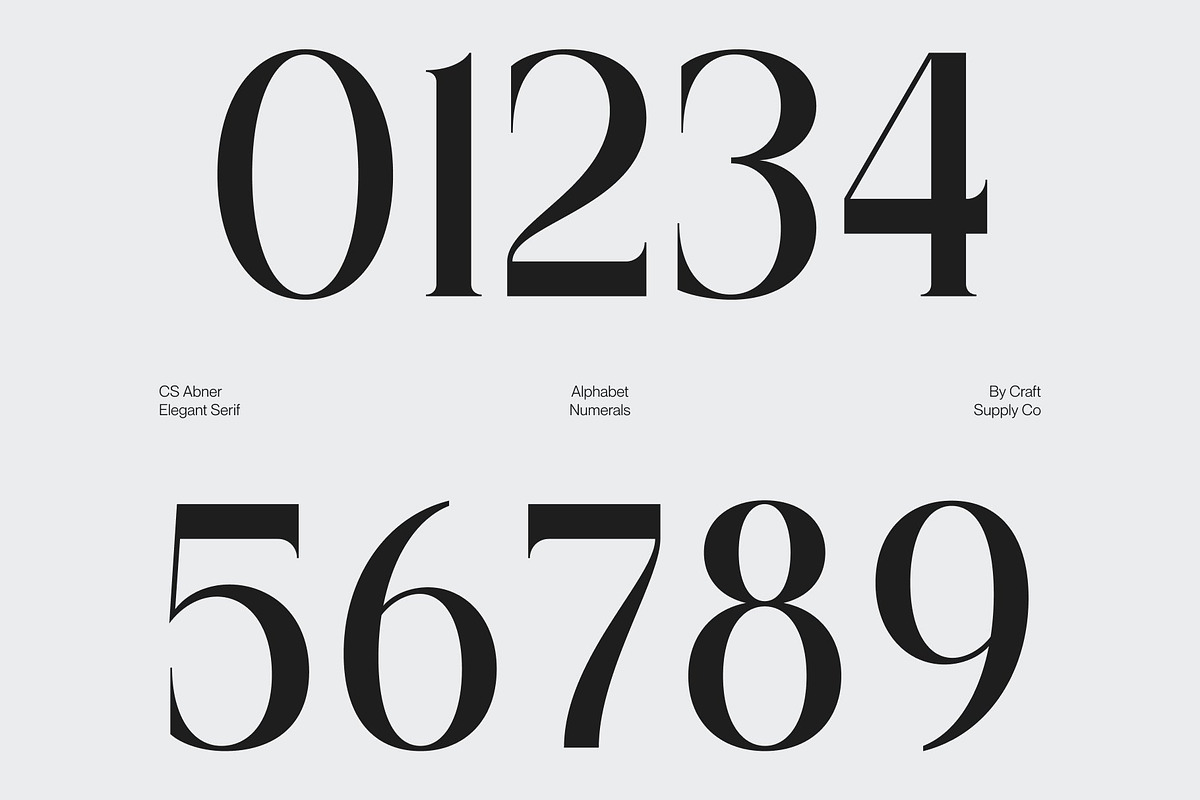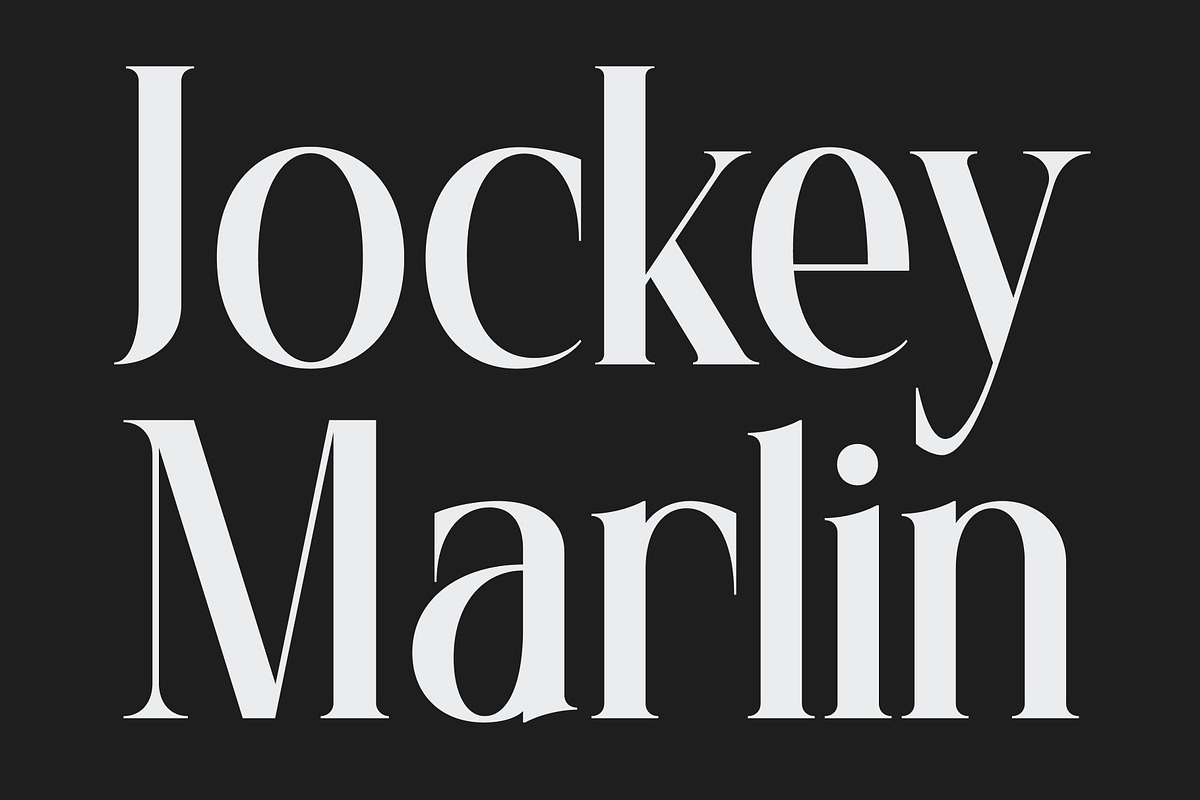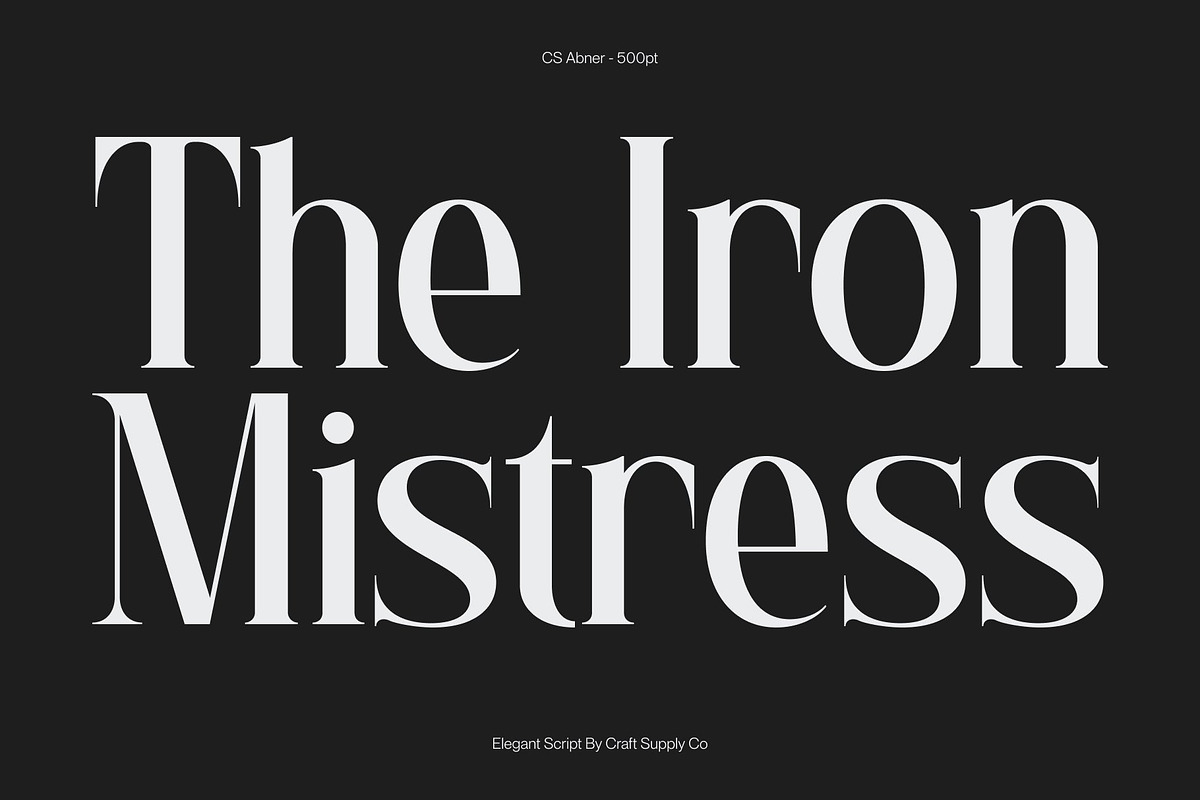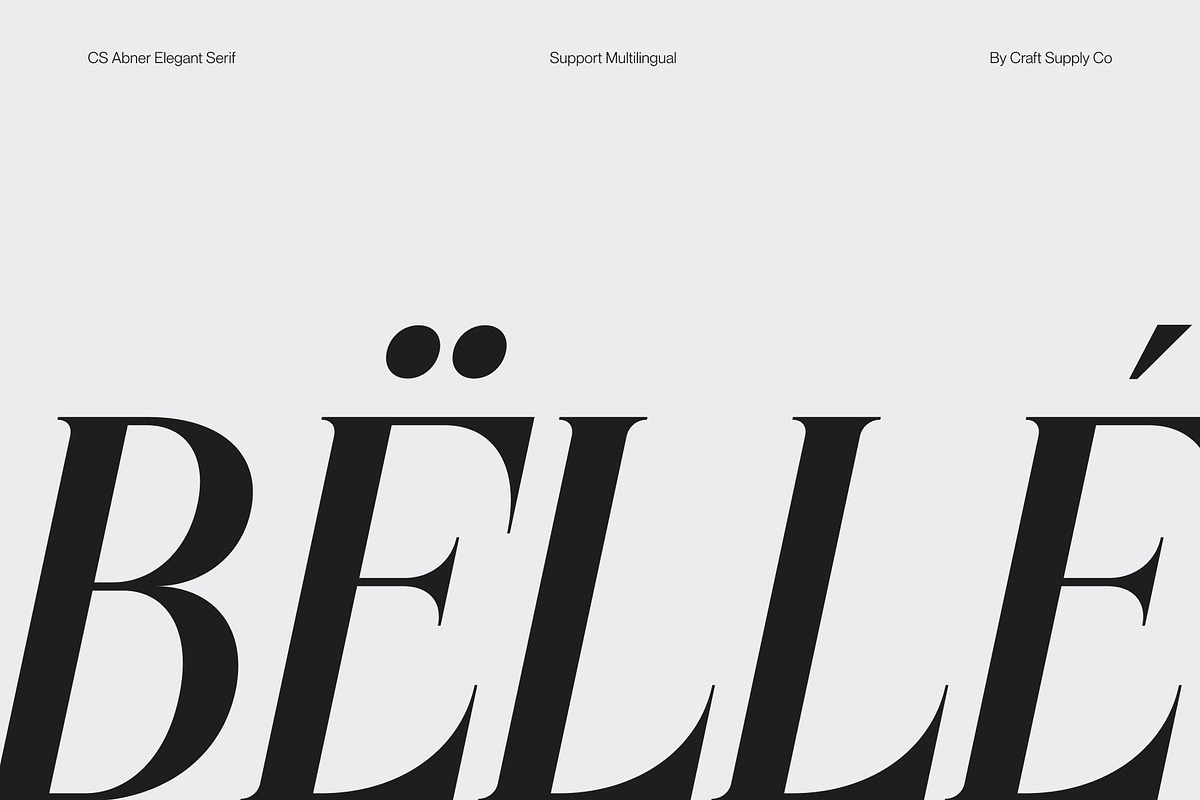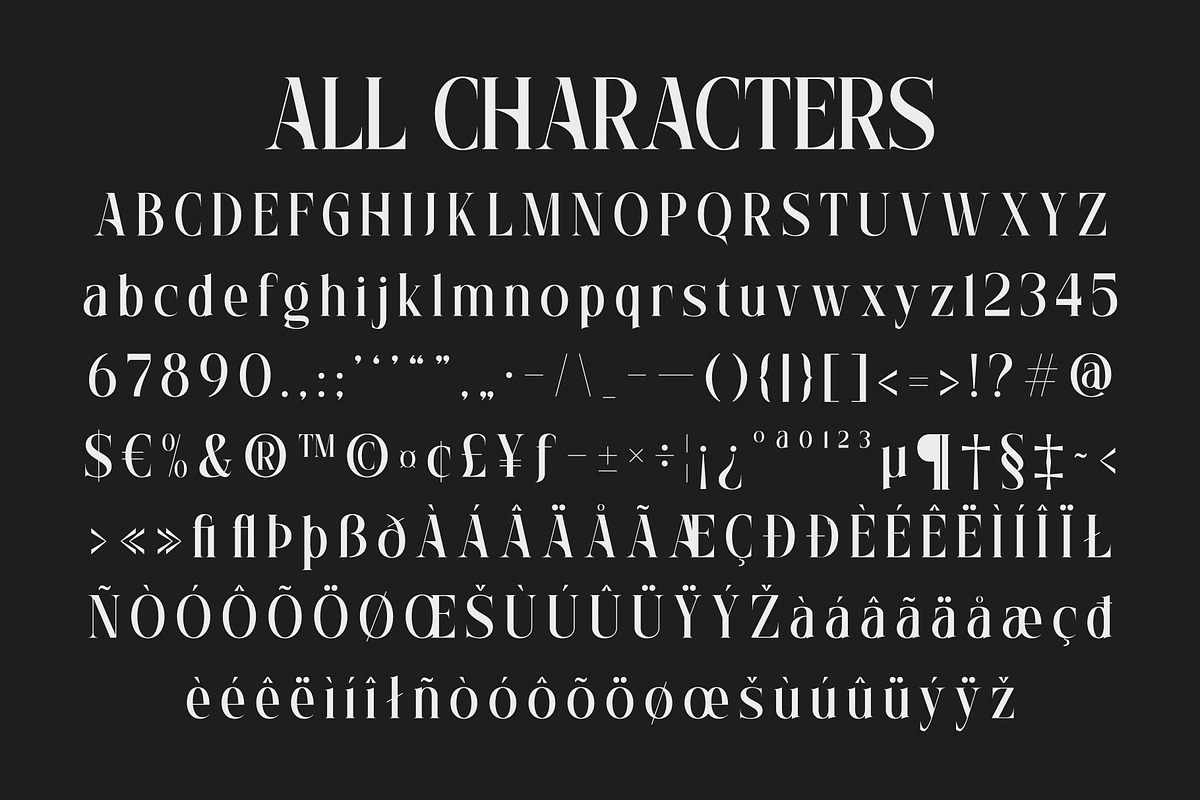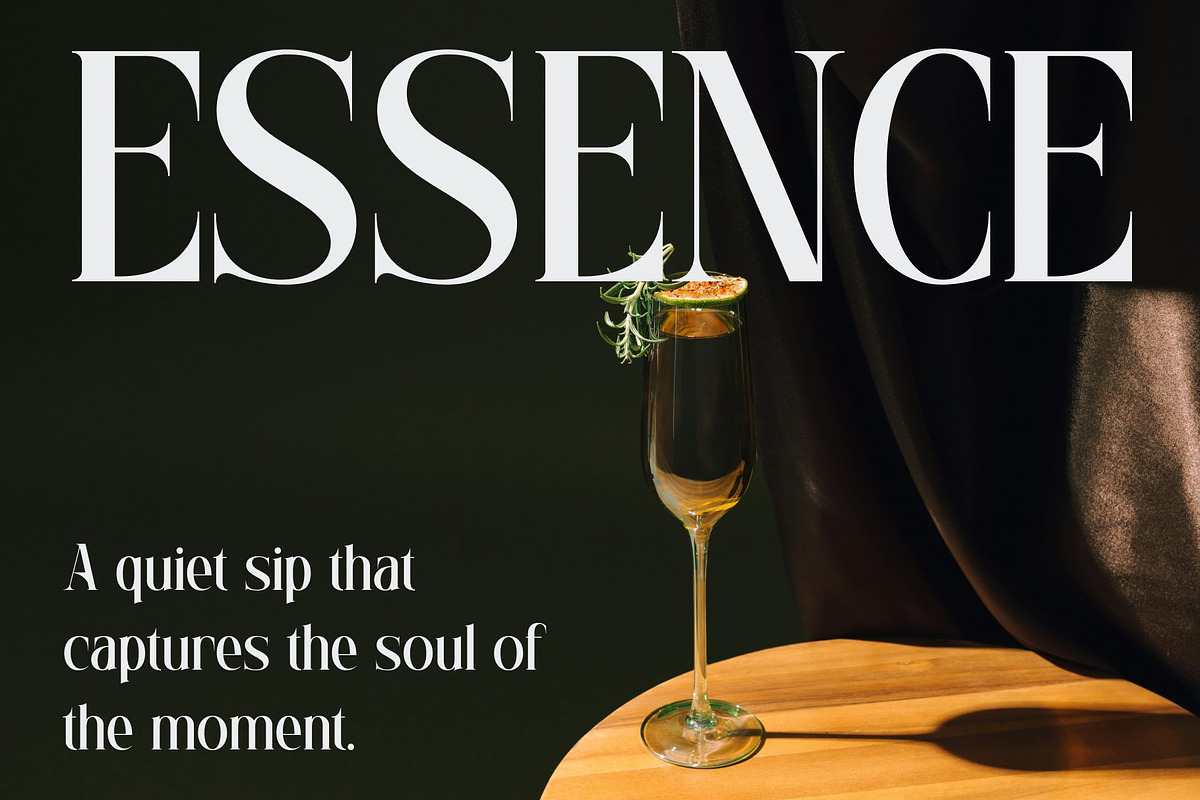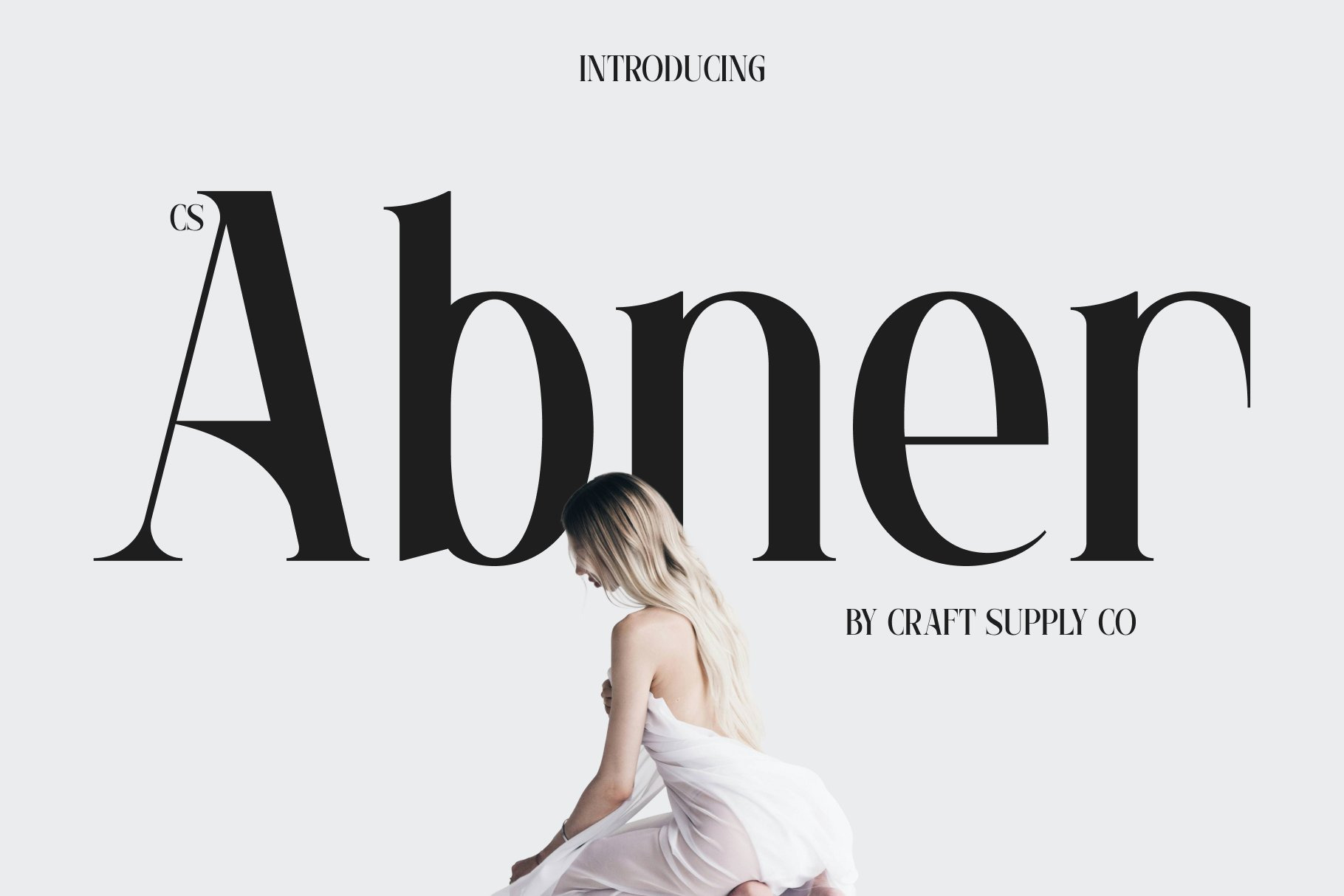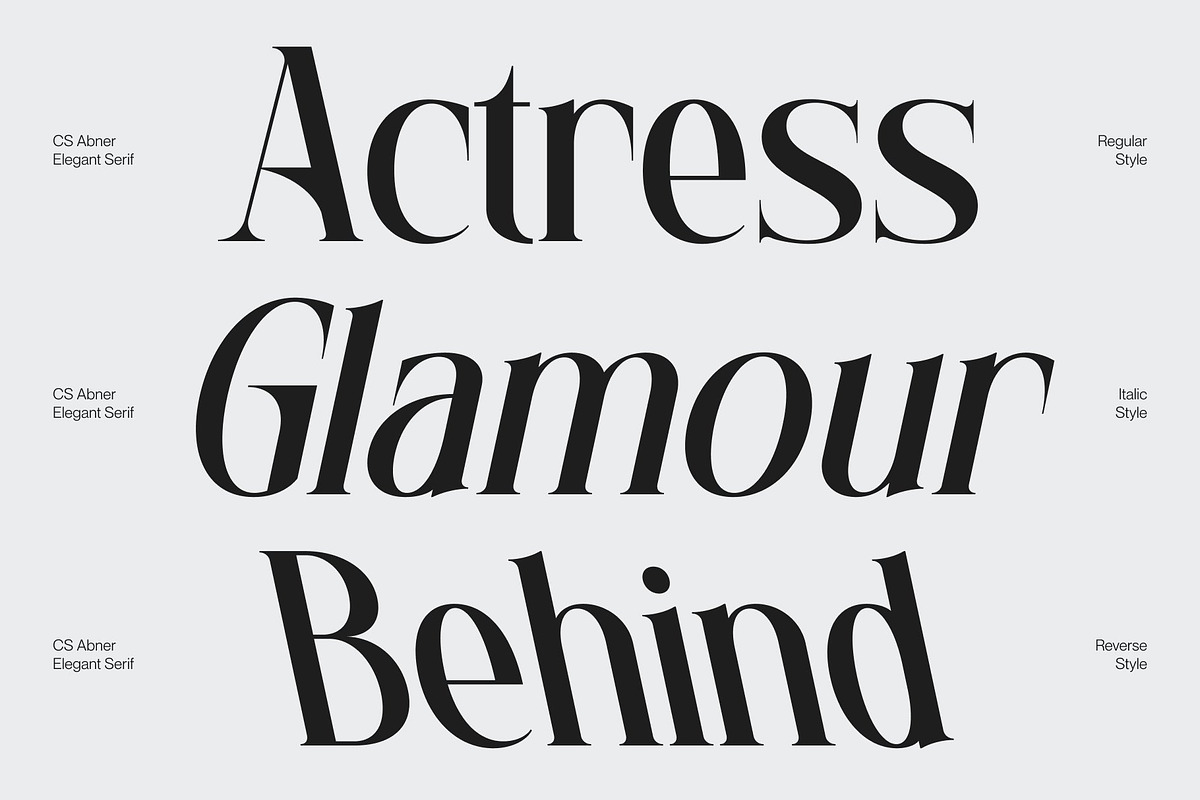
CS Abner – Elegant Serif Font
CS Abner – Elegant Serif with High-Contrast Refinement
Elegant Serif with Refined Curves This is an elegant serif font defined by its refined curves and sophisticated structure. Designed to express luxury and modern elegance, this typeface combines graceful letterforms with a polished typographic rhythm. Every character is carefully crafted to create a balanced and high-end visual impression.
High Contrast for Dramatic Elegance The font features a striking high-contrast design that enhances its sense of sophistication and artistry. The contrast between thick and thin strokes adds depth, elegance, and visual drama, making each word feel expressive and refined. This dynamic quality gives this font a timeless yet contemporary personality.
Luxury Aesthetic with Modern Precision This font blends classic serif traditions with a modern design sensibility, resulting in a typeface that feels both timeless and fresh. Its clean detailing and elegant proportions ensure strong readability while maintaining a luxurious aesthetic suitable for premium design work.
Perfect for Luxury Design, Editorials, and Branding From high-end branding and fashion campaigns to editorial layouts and luxury packaging, this font delivers a refined typographic voice. Its combination of high contrast, elegant curves, and modern sophistication makes it ideal for projects that demand prestige, beauty, and visual impact.